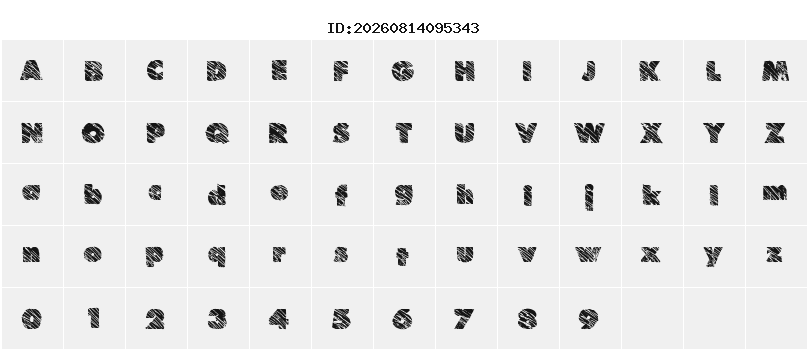
• Font Name: SuchFrosting
• Font ID: SuchFrosting:Version 1.00
• Full Font Name: SuchFrosting
• Version: Version 1.00 October 8, 2014, initial release
• PostScript Name: SuchFrosting
• Character Count: 72
• Designer: Xerographer Fonts Max Infeld
• Manufacturer: Xerographer Fonts
• Description: Made at Xerographer Studios in Portland,OR
About SuchFrosting.ttf
SuchFrosting.ttf is a modern, elegant sans-serif font designed for ultimate readability and visual harmony. Perfect for branding, headlines, web design, and print materials.